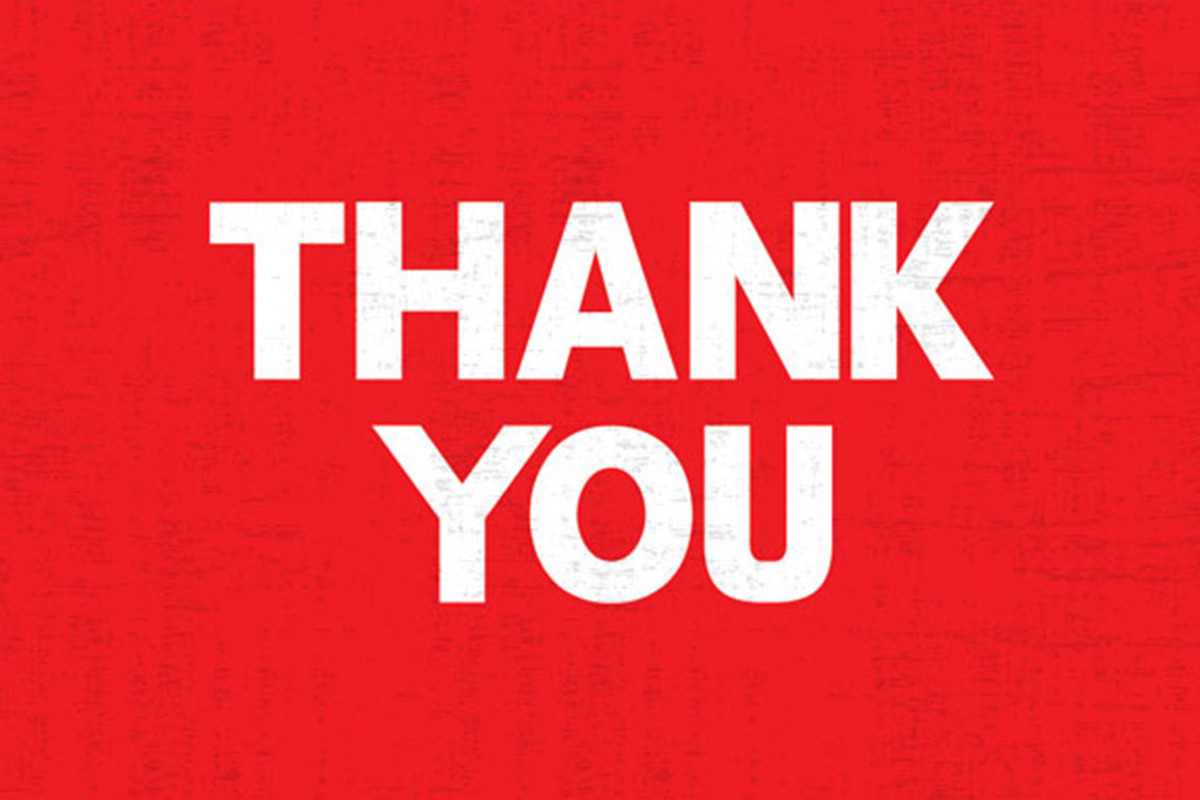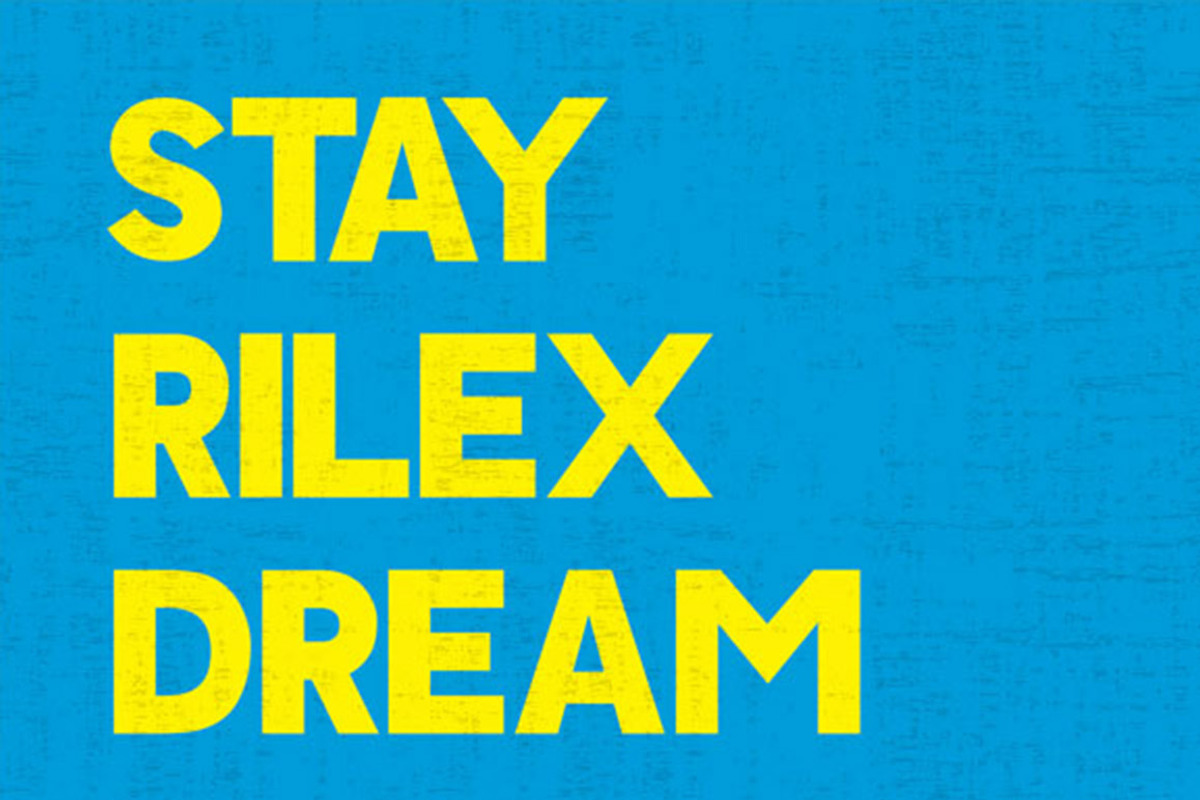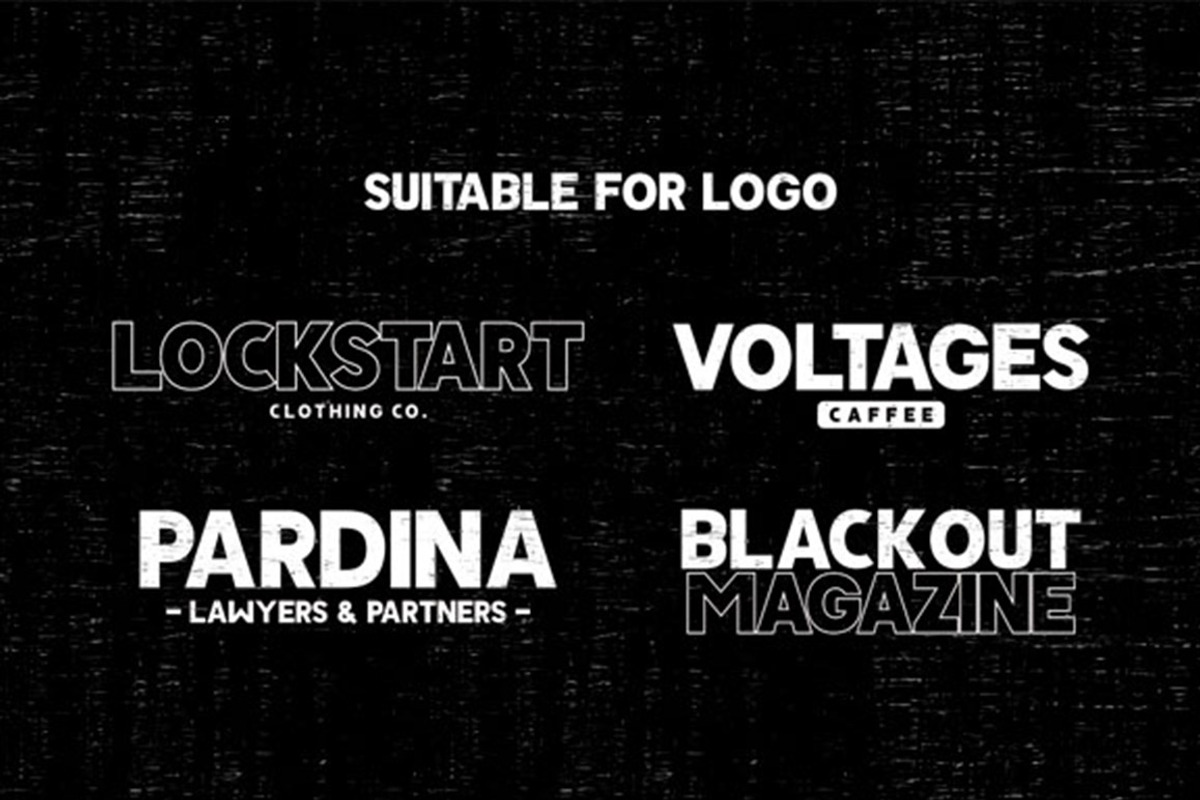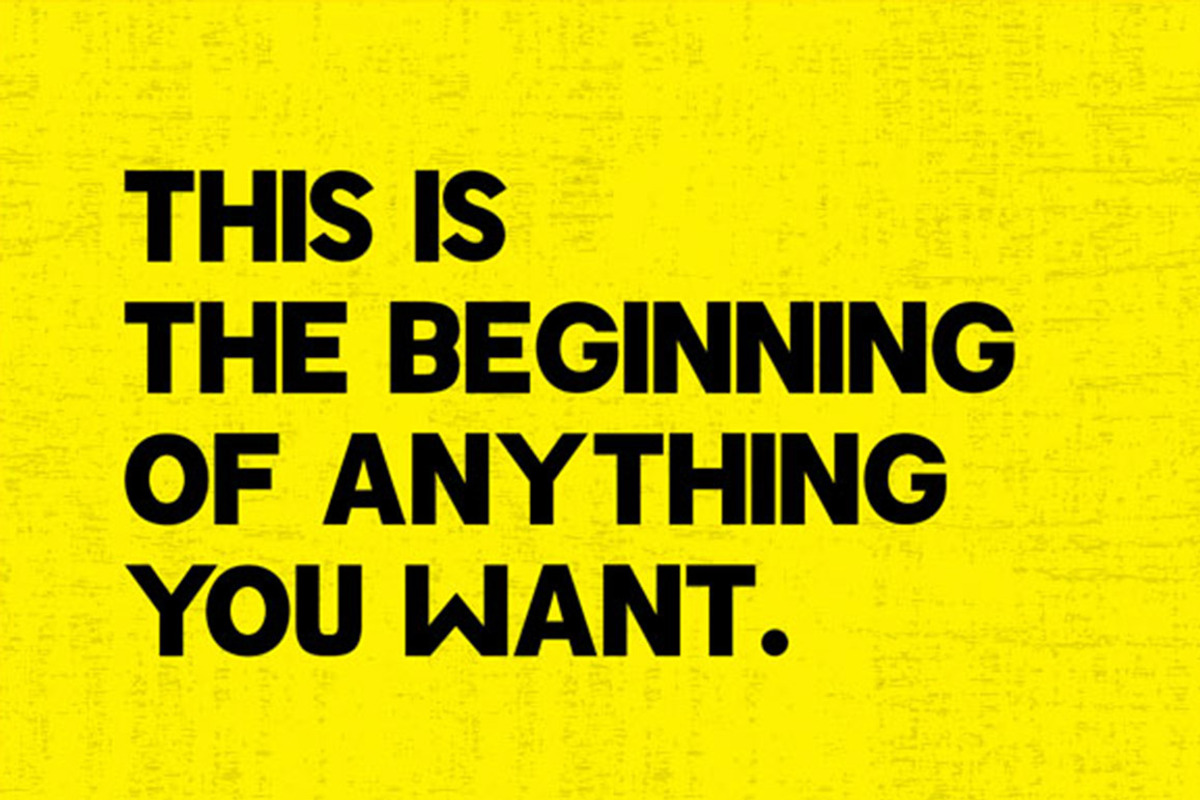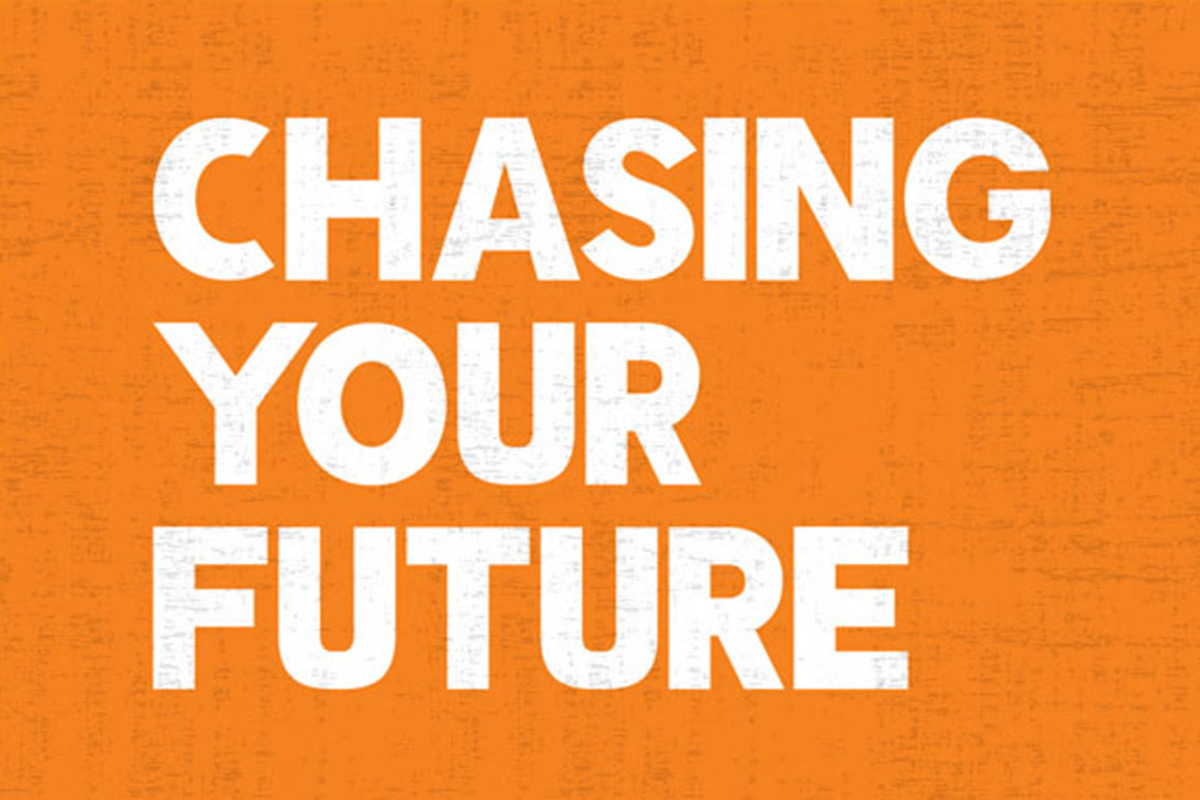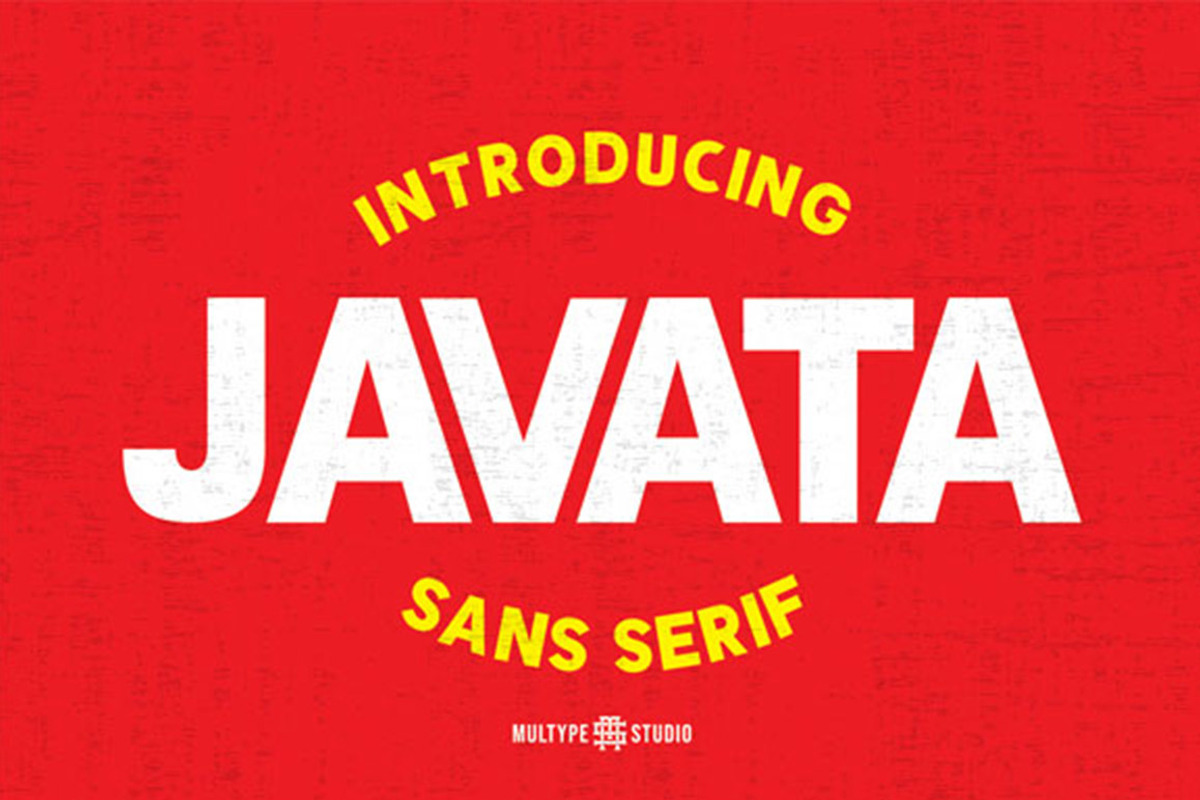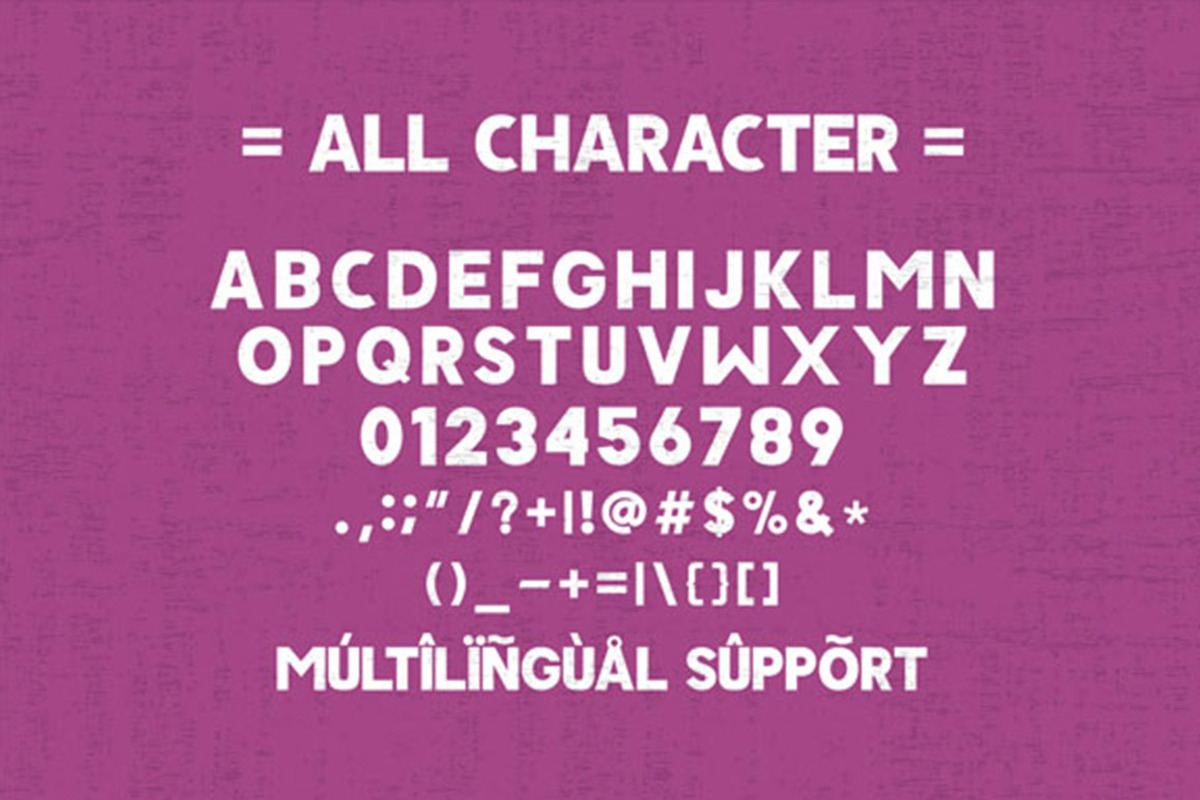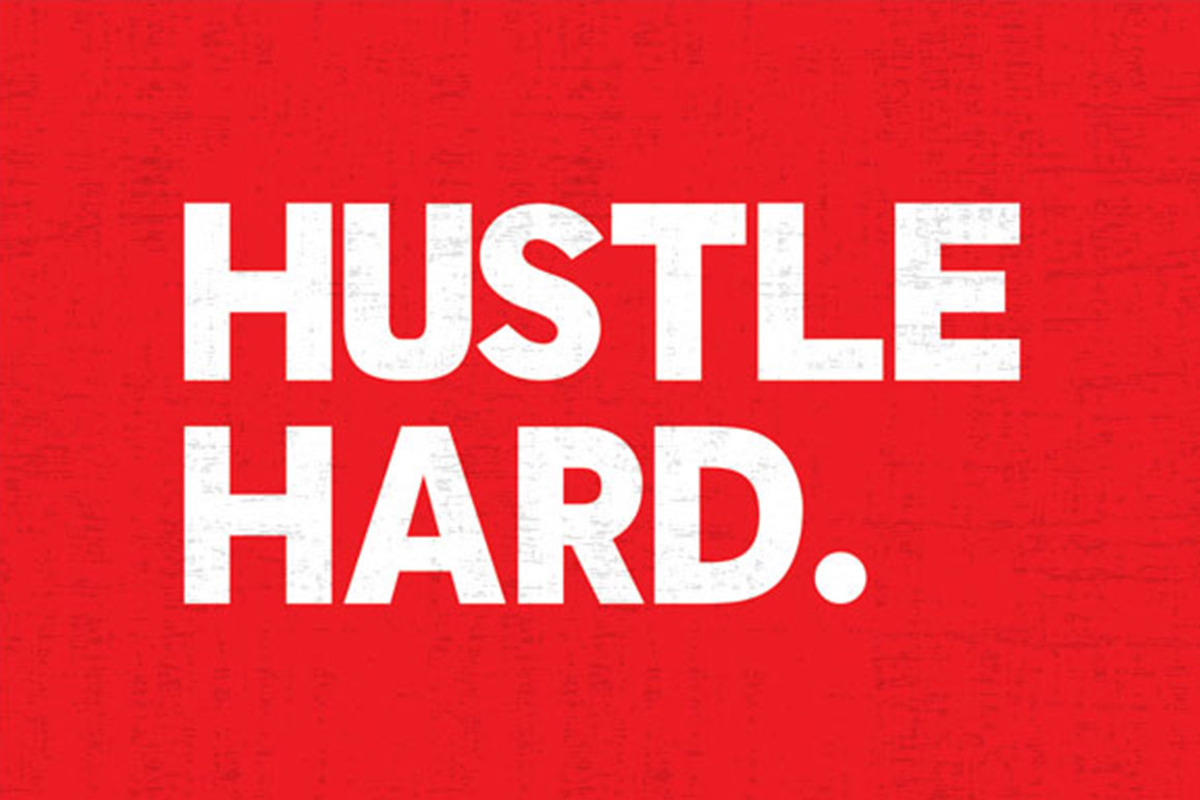
Javata Sans Serif Font
Javata is a strong sans serif font. It features a sophisticated style. Whether you’re looking for fonts for Instagram or calligraphy scripts for DIY projects, Javata will turn any creative idea into a true piece of art!